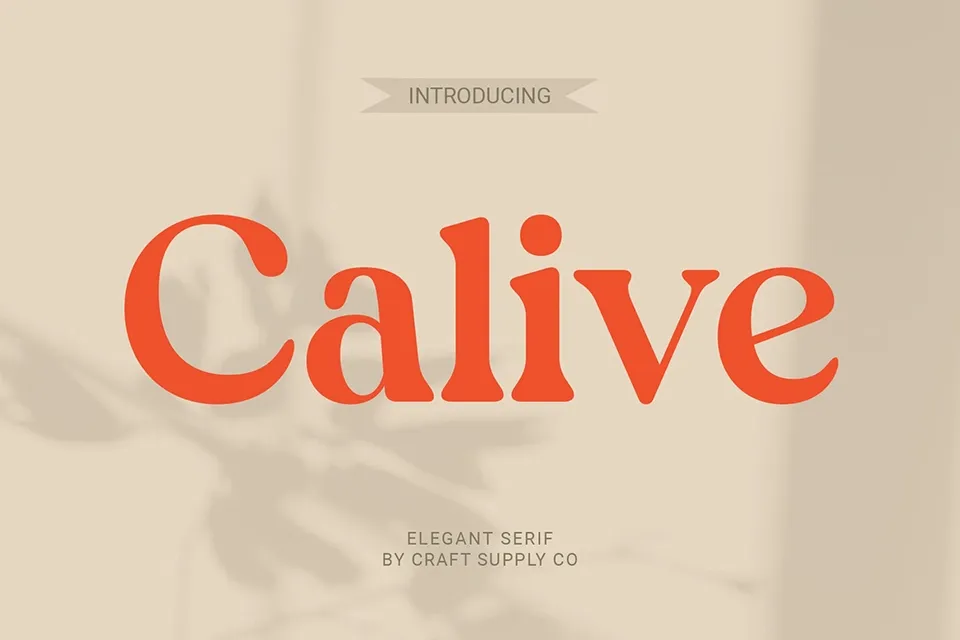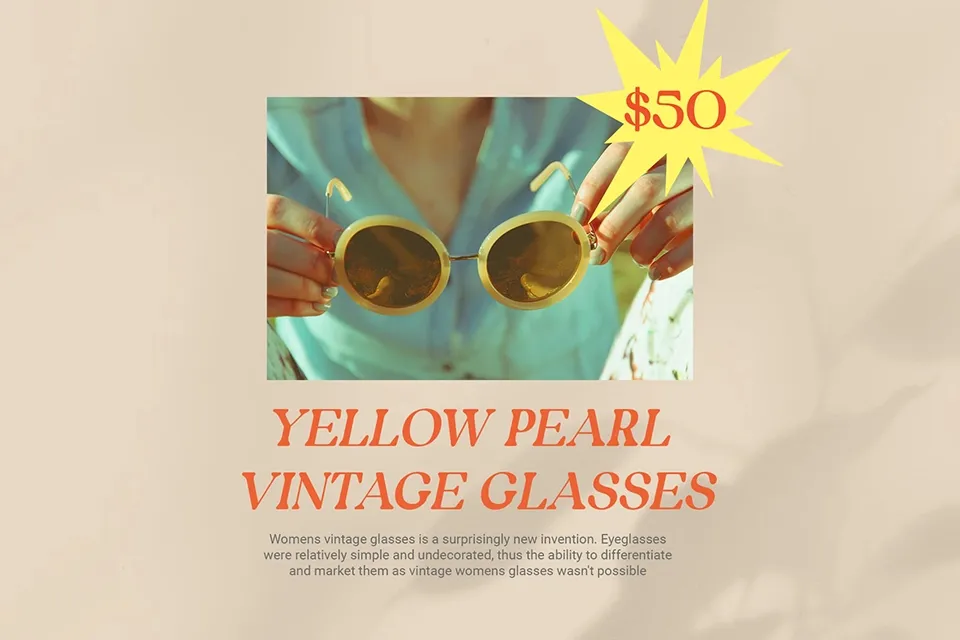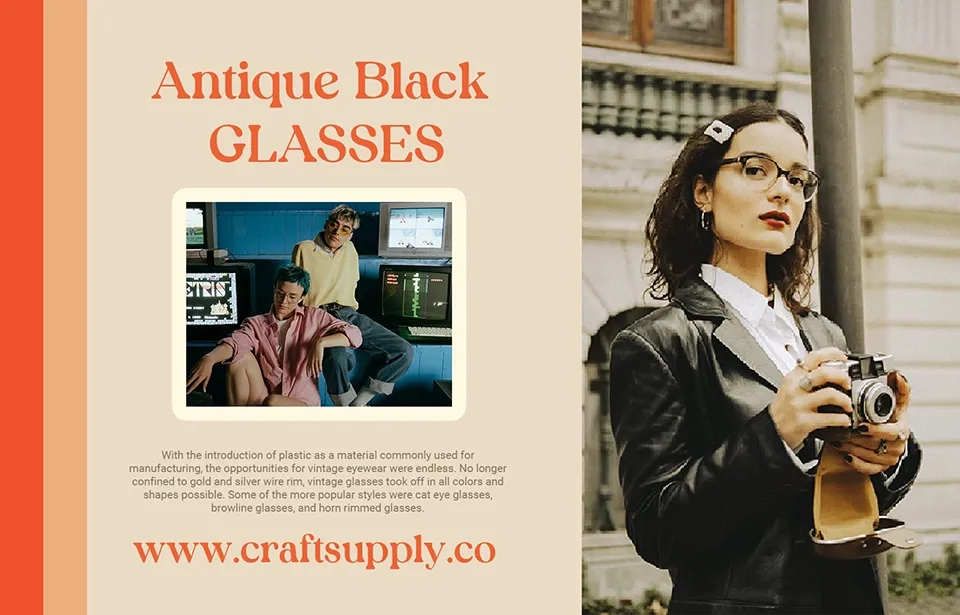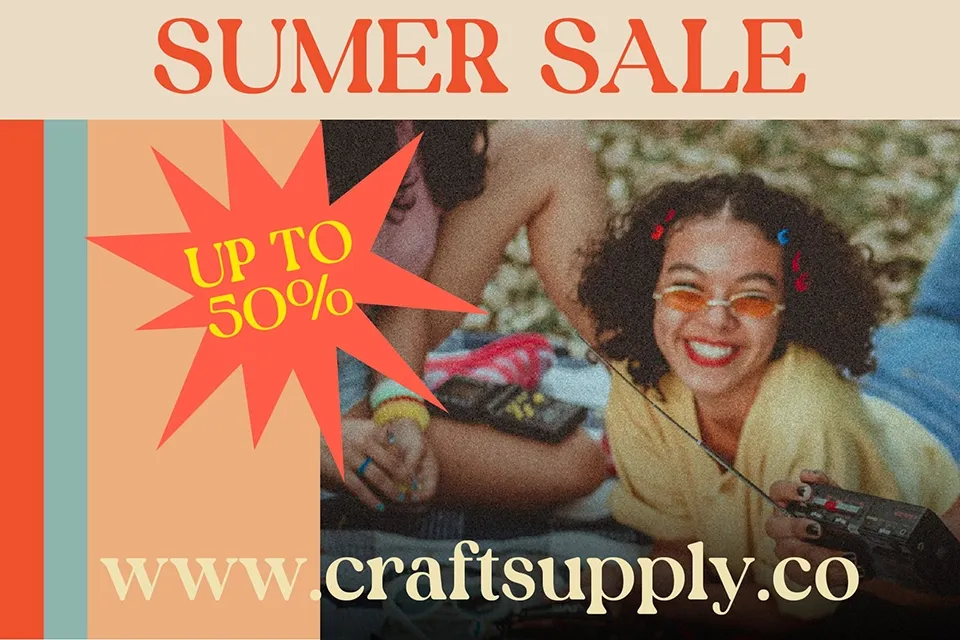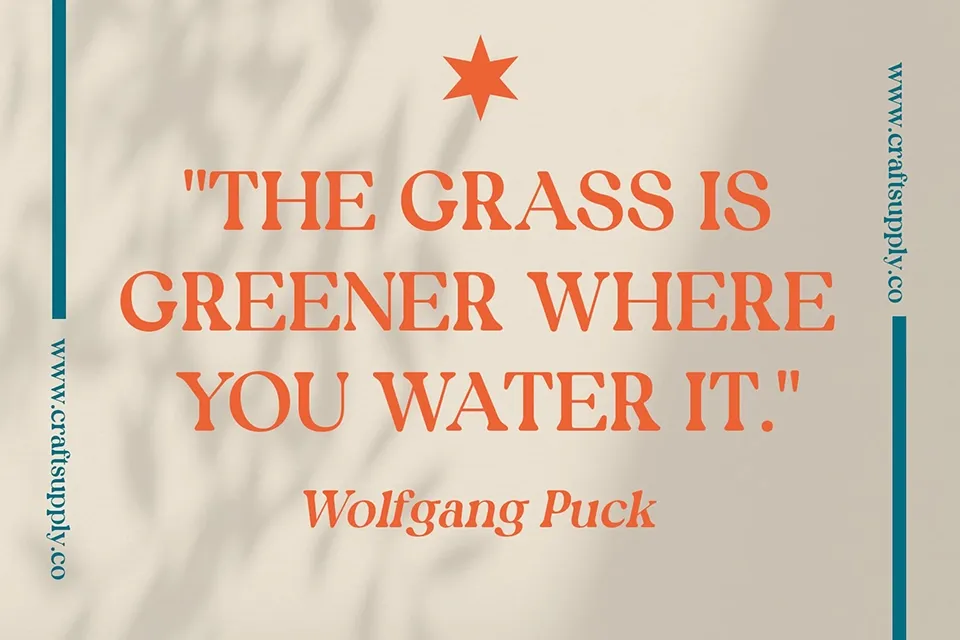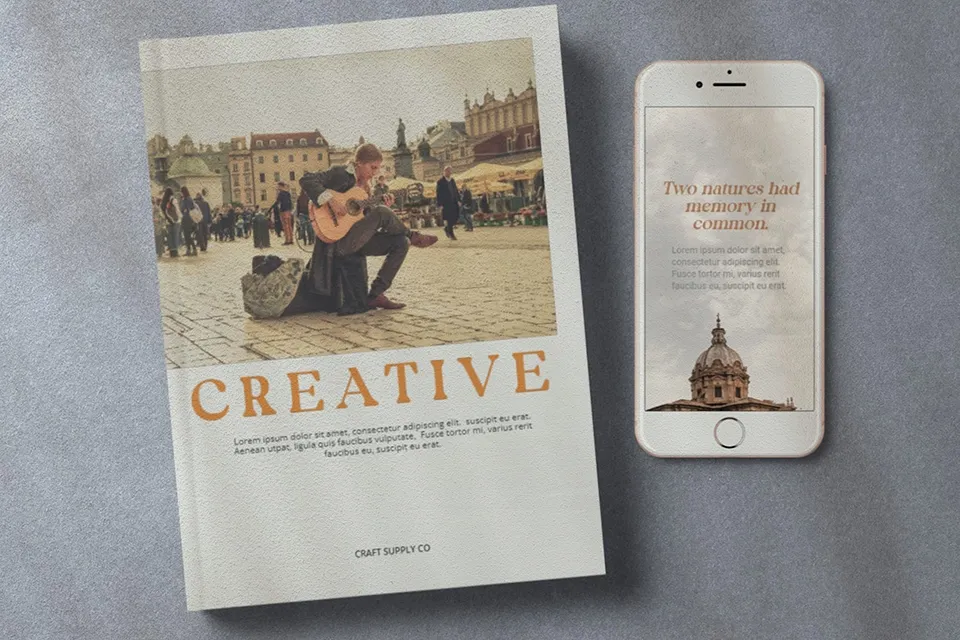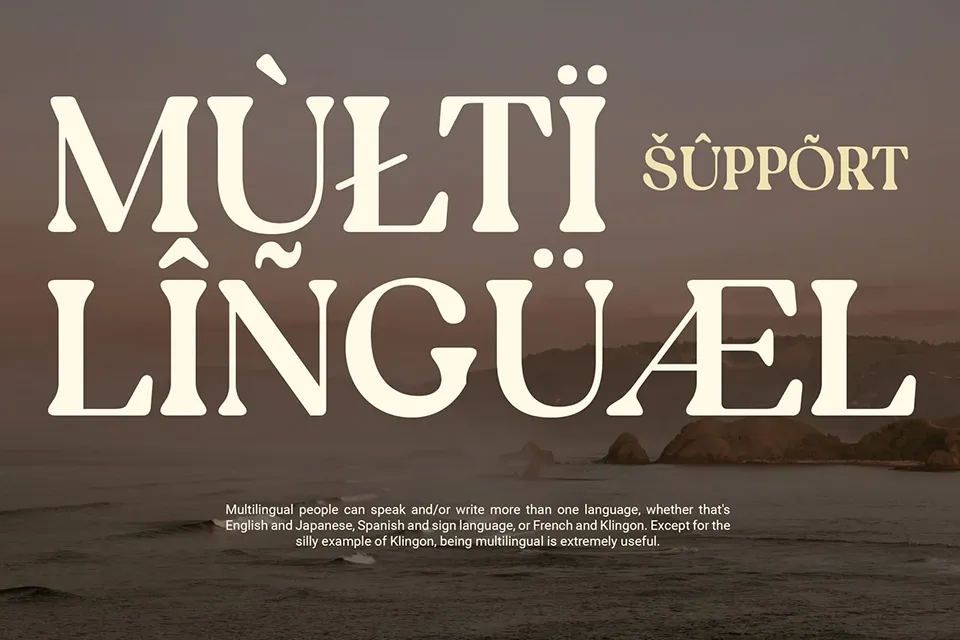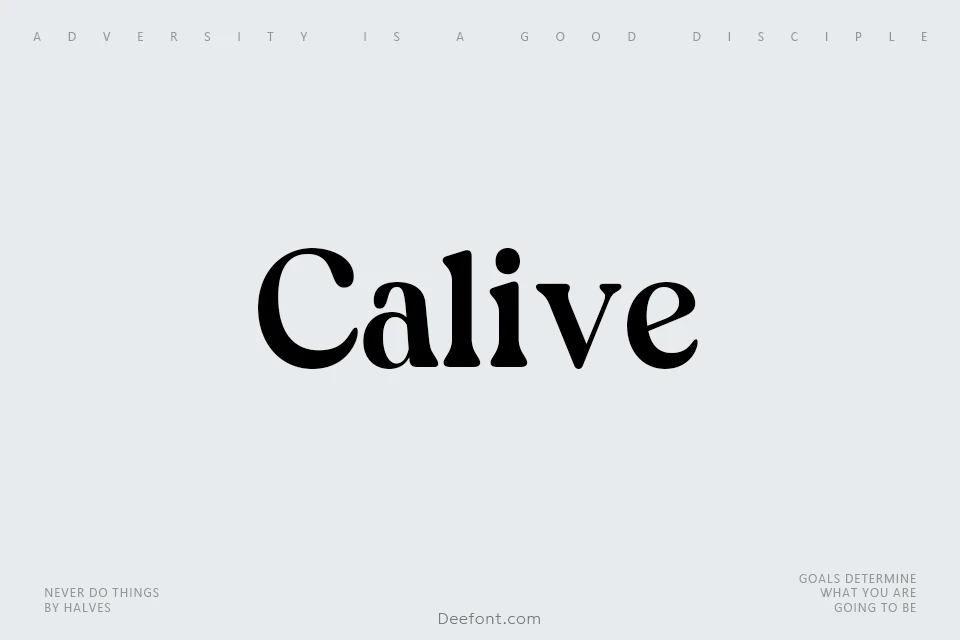
Calive Font
Calive Font is an elegant serif typeface crafted by Craft Supply Co. This font features bold, distinct letterforms with gracefully styled serifs, blending classic structure with a modern sensibility. Its robust weight and clear design make it highly suitable for impactful headlines, branding, logos, editorial design, and sophisticated invitations. Calive exudes a sense of refinement and strength, offering a versatile option for projects that require a touch of timeless elegance combined with contemporary flair. Use Calive to bring a polished and commanding presence to your typographic compositions.